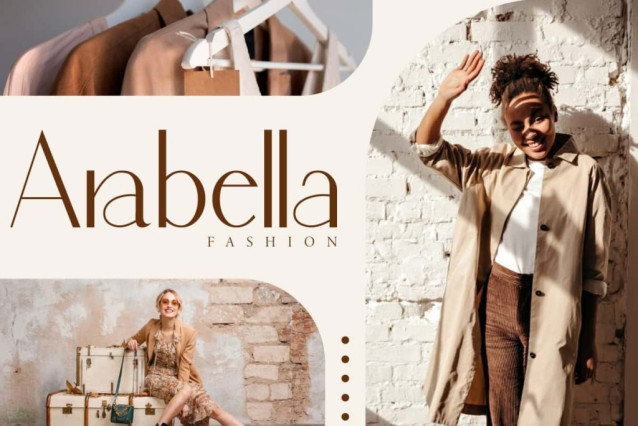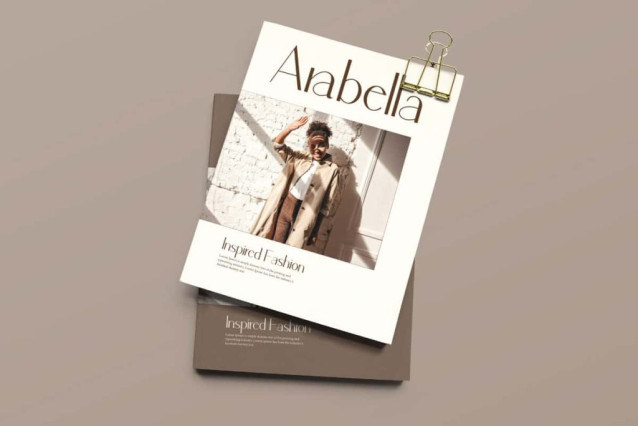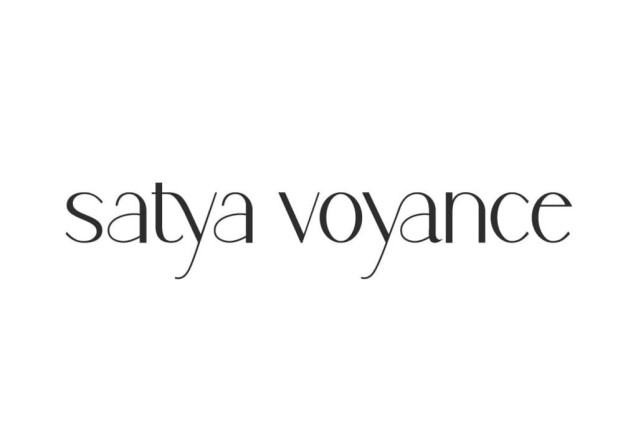
Satya Voyance Font
Satya Voyance Font is a beautiful and sophisticated display font at the same time, with a charming complement of ligatures. This is inspired by the title of a famous fashion magazine so the connection is very elegant and modern. Perfect for banners, blogs, brochure, covers, flyer, headers, invitation, logos, mockup, packaging, quotes, template, titles, website, and more.
Satya Voyance Font includes full set of Uppercase and Lowercase Basic Characters, Numbers, Punctuation, Symbols and Ligature. To help you create unlimited variations for your creative needs. With that, it will add value to your brand to make it look more premium. Perfect for advertising, apparel, cosmetology, fashion, graphic designer, handicraft, home furniture, skincare, spa salon, real estate, wedding, and more.